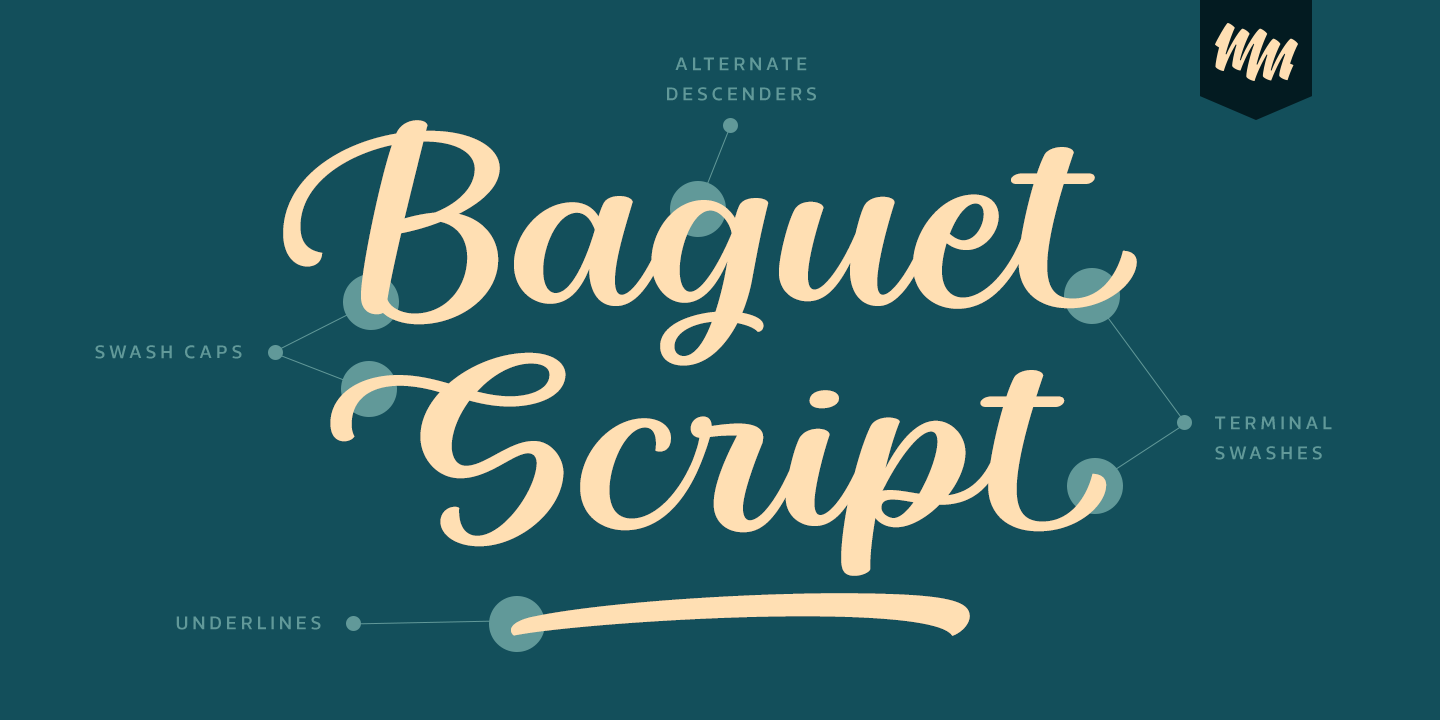
The Baguet Script Font is an excellent choice for designs that aim for a sophisticated, elegant, and distinctly luxurious handwritten aesthetic, often reminiscent of delicate pastry or artisanal craftsmanship. Imagine it gracefully adorning the packaging of gourmet baked goods, adding an exclusive charm to bespoke wedding invitations, or lending an exquisite feel to high-end boutique branding. It's also perfectly suited for editorial titles in upscale magazines, personalized stationery, glamorous event materials, and any project where you want to convey a sense of refinement, artistry, and exclusivity. Its flowing lines, graceful flourishes, and distinctive character make it ideal for conveying beauty and a unique, artistic flair.
What makes the Baguet Script Font so exciting is its ability to instantly infuse a design with a sense of bespoke craftsmanship and high-end appeal. It often features elegant ligatures, stylistic alternates, and smooth connections that mimic skilled hand-lettering, making it feel both personal and polished. This font has a luxurious and inviting personality that can instantly elevate your design, making it feel both intimate and supremely stylish. It's designed to capture attention with its distinctive elegance, ensuring your message is not just seen, but appreciated for its refined artistry.
The Baguet Script Font family typically might focus on a few key weights to best maintain its distinctive character, with a strong emphasis on stylistic sets, swashes, and a wide array of ligatures crucial for creating authentic and varied script effects. While it might not always have an extensive range of weights, its strength lies in its rich OpenType features that allow for highly customized and decorative typographical compositions. These variations empower designers to create a truly captivating and memorable display, ensuring the Baguet Script Font Free Download can adapt to a wide array of projects while maintaining its signature, elegant charm.